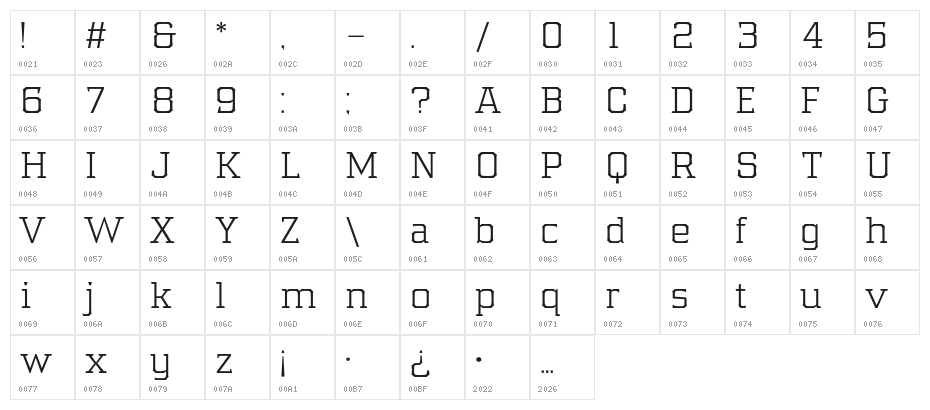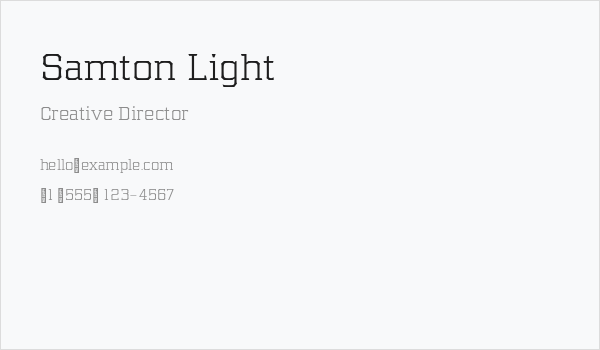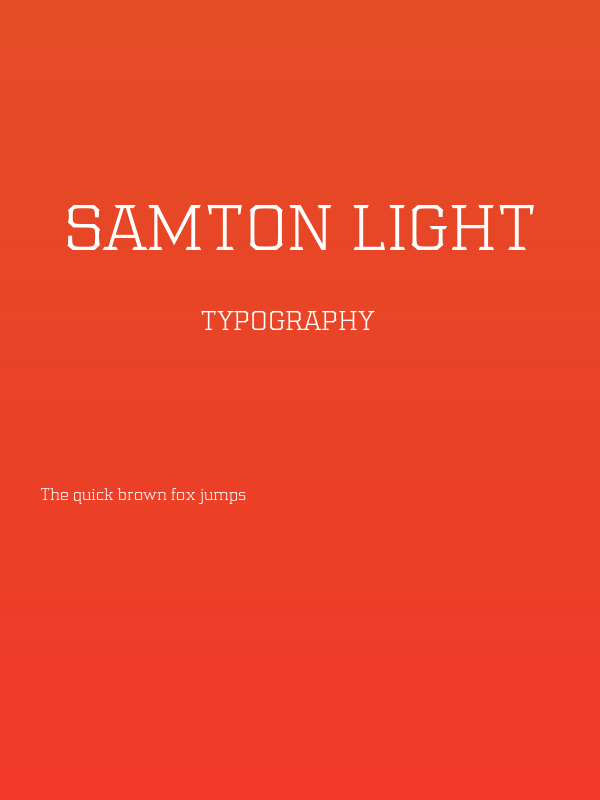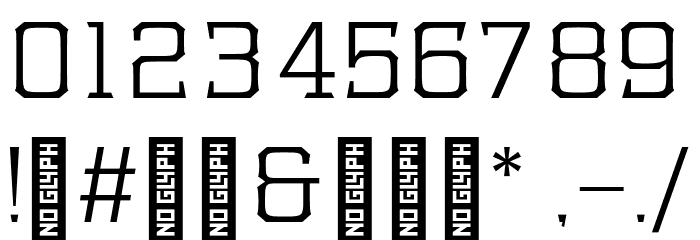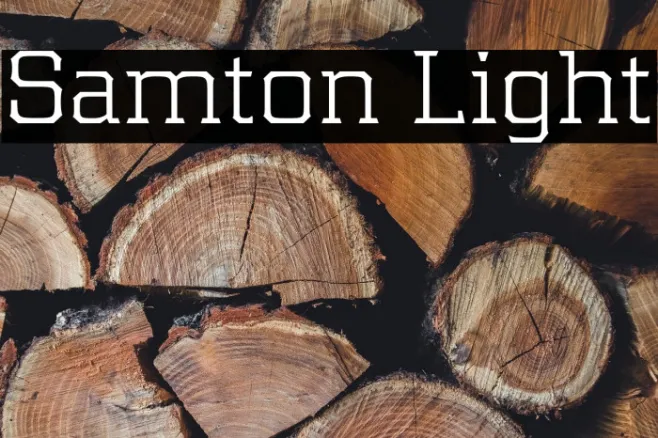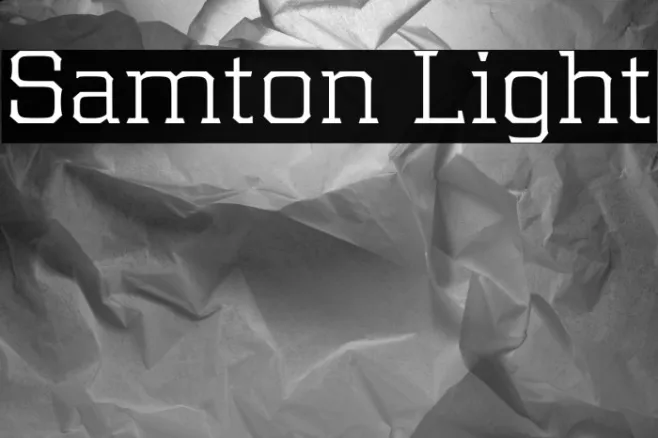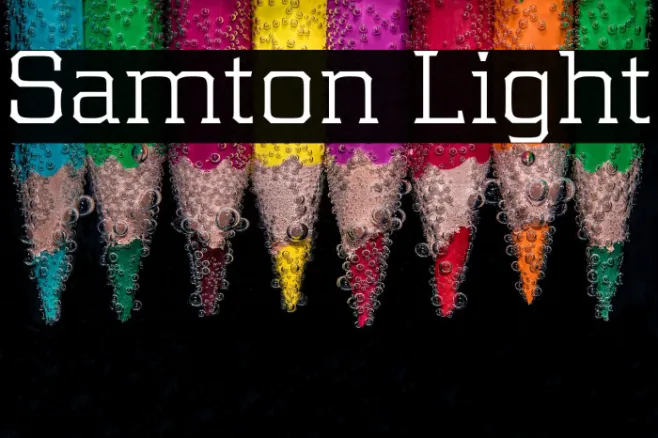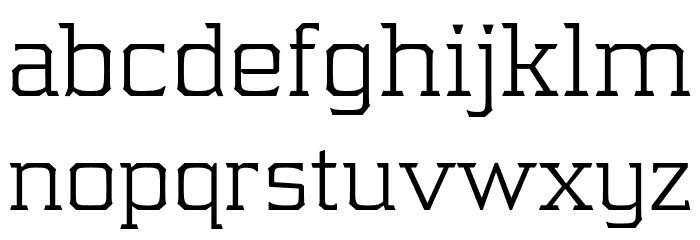
Samton Light Font
Samton Light Description
This font features a geometric and structured design with a modern twist. The uppercase letters are bold and angular, creating a strong presence. The lowercase letters maintain a consistent style, with rounded edges that soften the overall look. The numerals are clear and easy to read, with a uniform width that complements the alphabet. Special characters are minimalistic, fitting seamlessly with the font's clean aesthetic. The overall appearance is both contemporary and versatile, making it suitable for a variety of design applications.